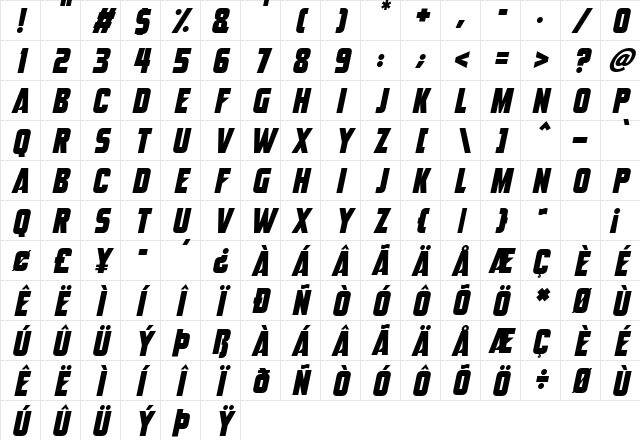
Alien AI Italic Free Font
Alien AI Italic
Design Context for Alien AI
Alien AI is a composed and adaptable typeface that performs quietly and consistently across a wide range of design contexts. The slanted form adds forward momentum and visual energy.
Pro Tip: Use Alien AI for emphasis, pull quotes, and subheadings where its slanted energy can add rhythm to the layout.